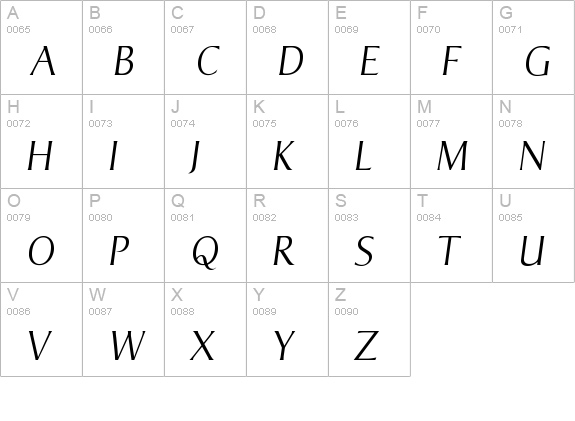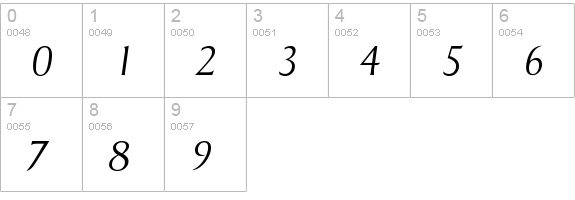
Sigvar-XlightIta is a remarkable font that effortlessly combines elegance with modernity. Its delicate and graceful strokes exude a sense of sophistication, making it the perfect choice for any project that requires a touch of refined beauty. The slim and stylish design of Sigvar-XlightIta adds a unique flair to any text, while maintaining readability and clarity. This font is designed with versatility in mind, allowing it to seamlessly adapt to various design styles and contexts. Whether it is used in fashion magazines, wedding invitations, or corporate branding materials, Sigvar-XlightIta will always make a statement. One of the most remarkable aspects of Sigvar-XlightIta is that it is available for free. That's right, you can download this stunning font at no cost from FontsMarket.com. This means that you can add a touch of elegance and sophistication to your projects without breaking the bank. Sigvar-XlightIta is not only visually captivating, but it is also incredibly easy to work with. Its OpenType features make it compatible with various design software, allowing you to effortlessly customize and enhance your typography. So why wait? Elevate your designs with Sigvar-XlightIta, a font that combines elegance, modernity, and the best part - it's free! Download it now at FontsMarket.com and let your creativity soar to new heights.